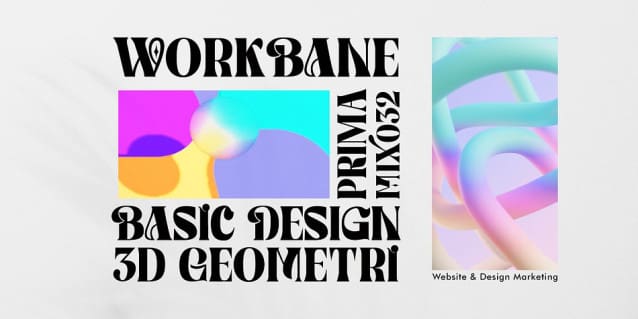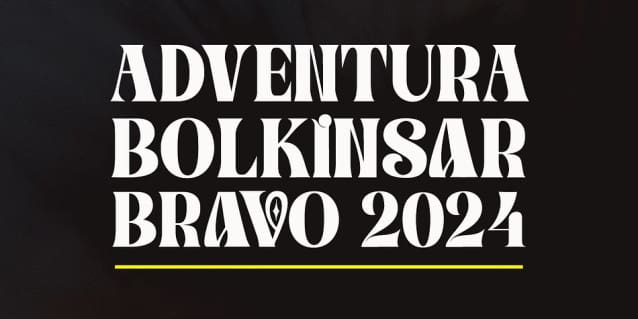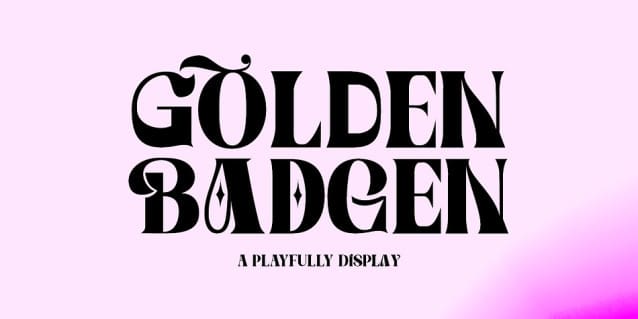
Golden Badge Font
Golden Badge Font is a luxurious yet elegant display uppercase font. characters that suit today’s styles will be very interesting for you to create any design work with a classy model that still maintains a calm and classy style to look at.